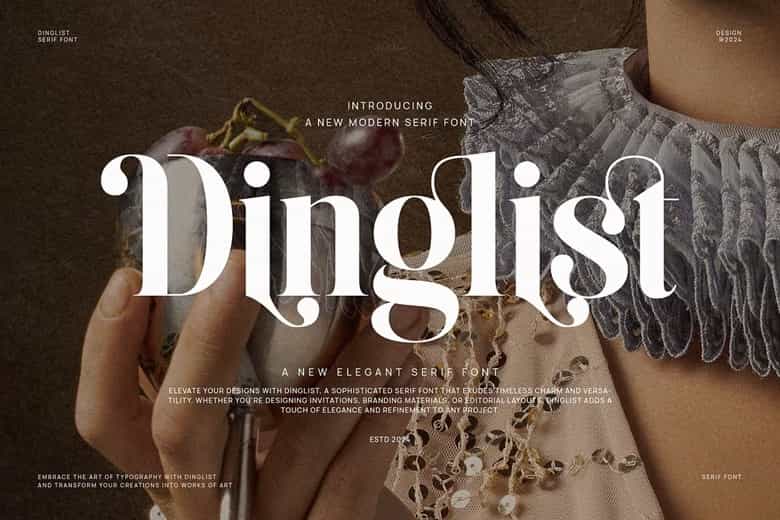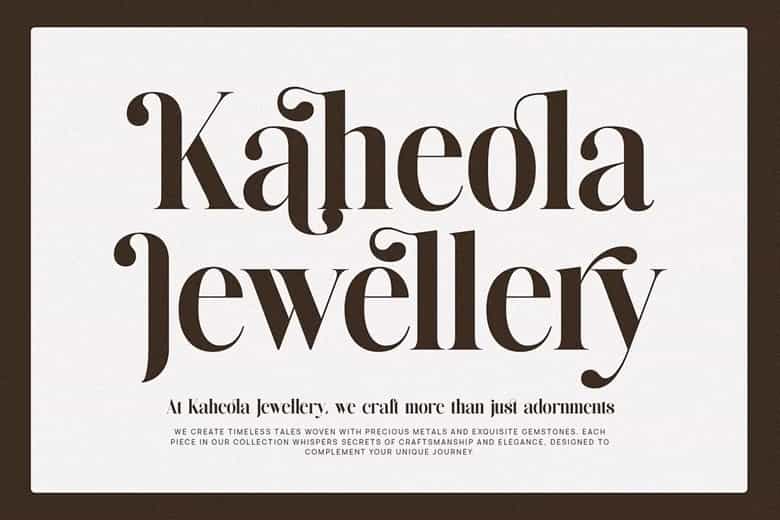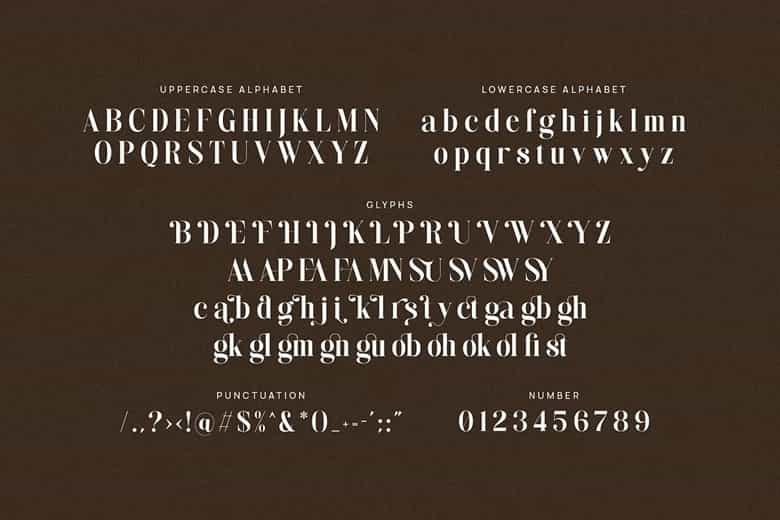
TypeLogue made Dinglist, a fashionable serif font with lots of contrast and suitable for editorial use. Because of its contemporary features and catchy design, it is best suited for branding, magazines, packaging for upscale goods, and visuals made for luxury.